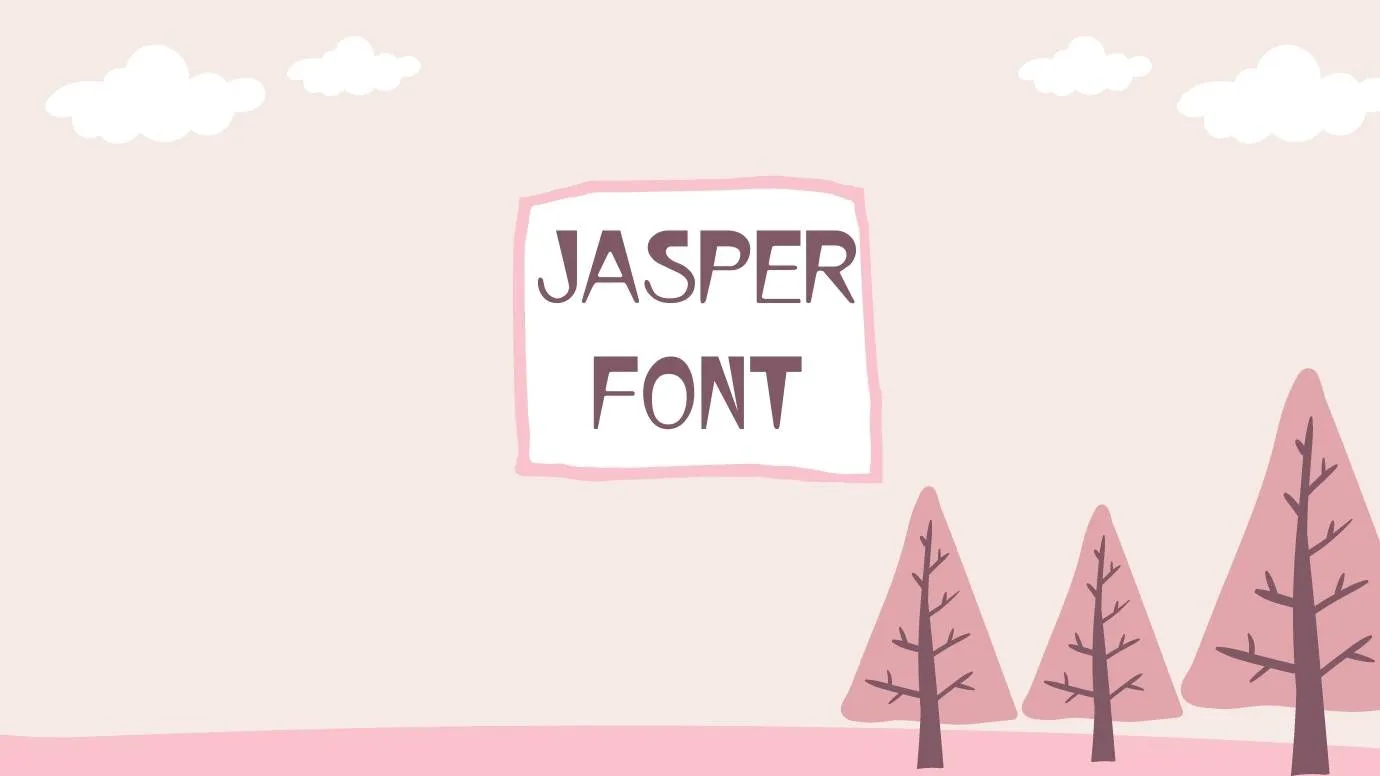
Jasper Font Family is a pretty, modern, and bouncy display typeface family that is known as Jasper Font. This amazing font family comes in two versions which are filled and outlined. It has the coolest unique glyphs & swashes.
NameJasper Font
DesignerÆnigma Fonts
StyleDisplay